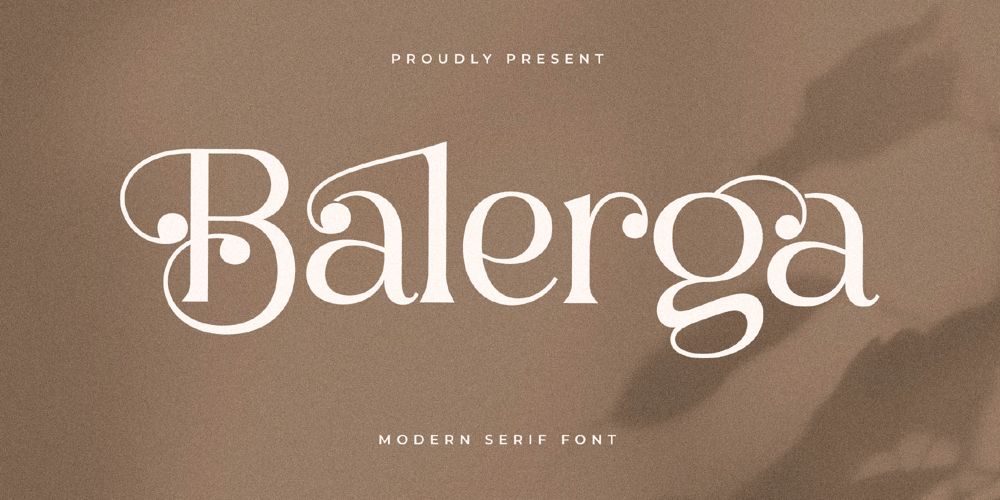
Balerga Font Family was designed by Heru Utama Putra and published by Letterena Studios. Balerga contains 2 styles and family package options. Balerga is a stylish and luxurious serif font. Featuring the right amount of trendiness, this font will instantly enhance any project you wish to create.